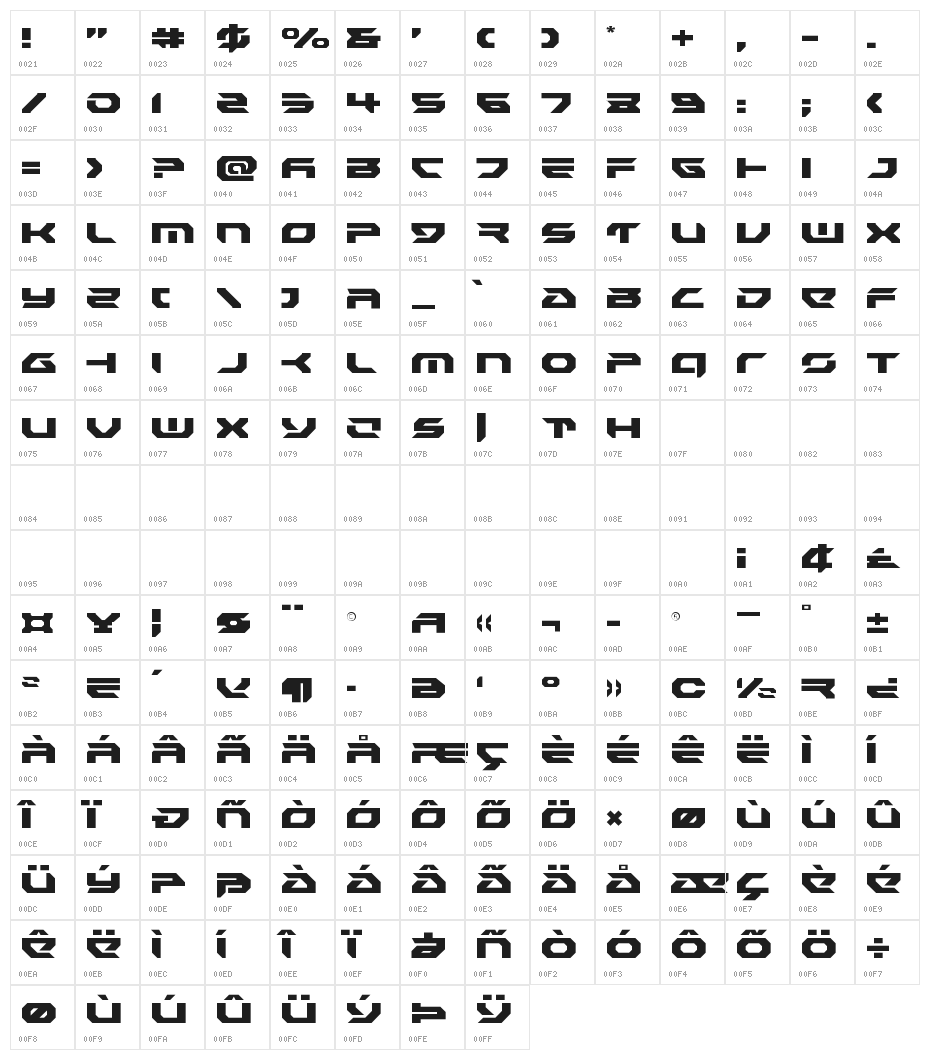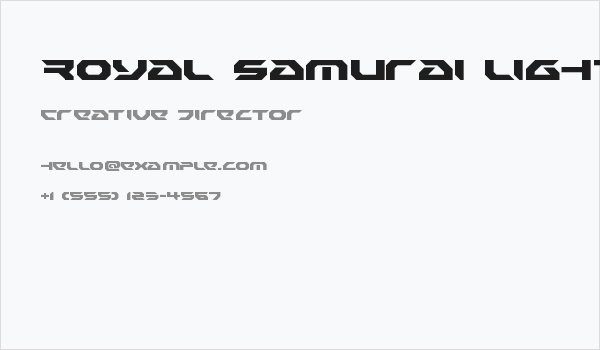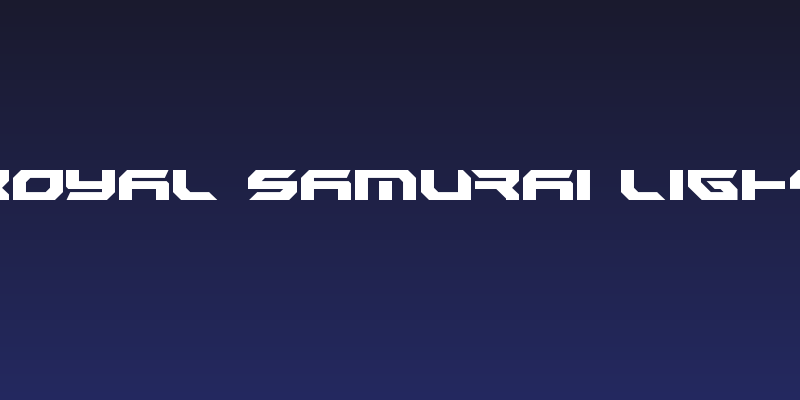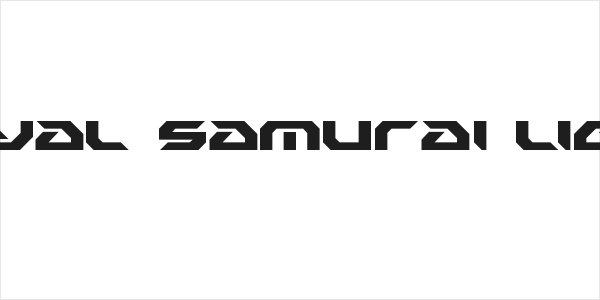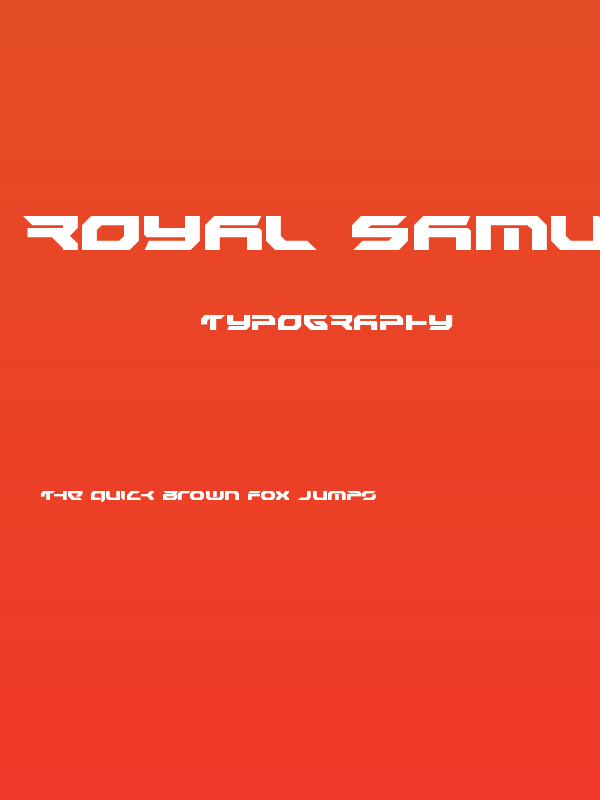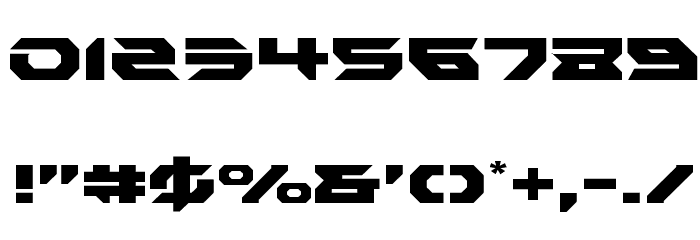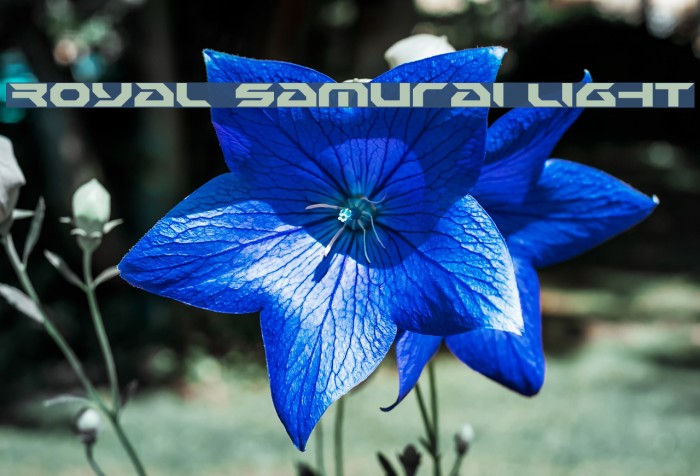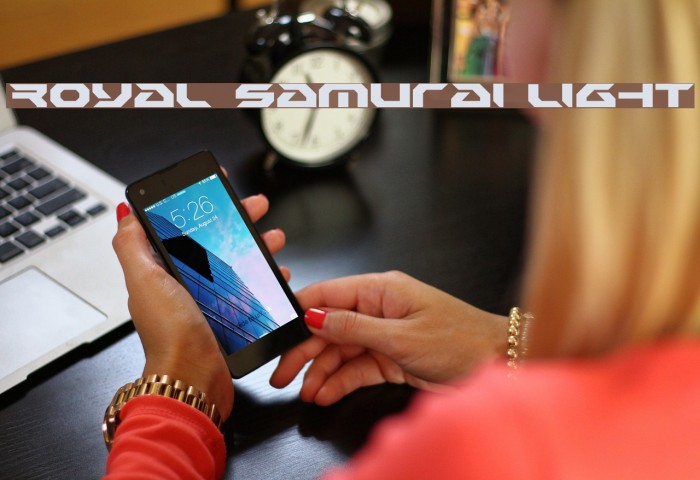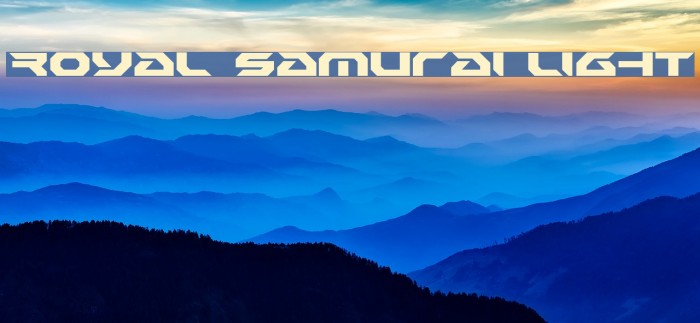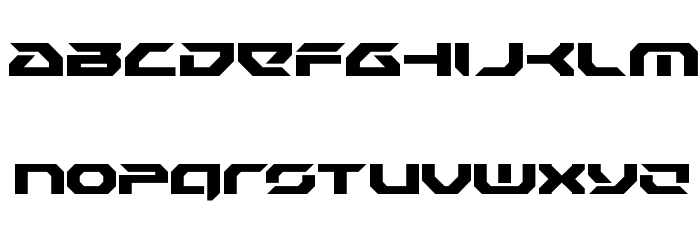
Royal Samurai Light Font
Royal Samurai Light Description
This font features a bold, geometric design with sharp angles and a futuristic aesthetic. The characters are constructed with a blocky style, giving them a strong and commanding presence. The uppercase and lowercase letters share a similar structure, maintaining consistency across the alphabet. Numbers and special characters are designed to match the angular theme, making the font suitable for projects that require a modern and edgy look. The overall design is clean and precise, with a focus on symmetry and balance.
| Overall Style | Futuristic, Modern |
| Proposed Projects | Ideal for sci-fi themed designs, video game titles, technology branding, and modern posters. |